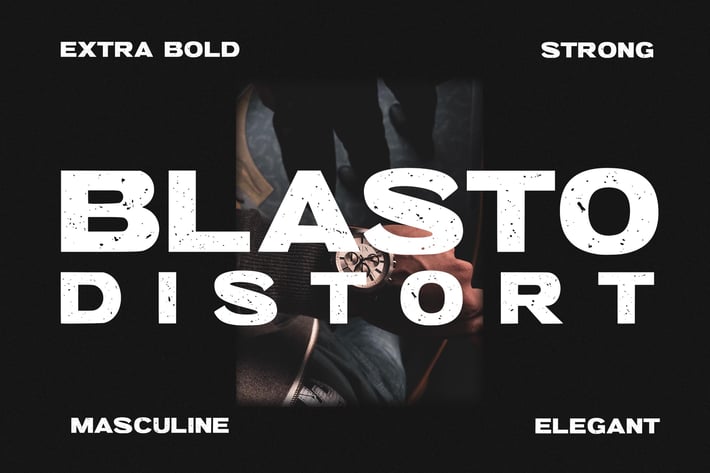
Blasto Distort Advertisement Font
Blasto Distort is super bold font with grunge effect inside its characters. Blasto Distort is awesome font. Very perfect for many project: fashion, magazines, logo, branding, quotes, blog header, poster, advertisements, postcard, book, websites, etc.